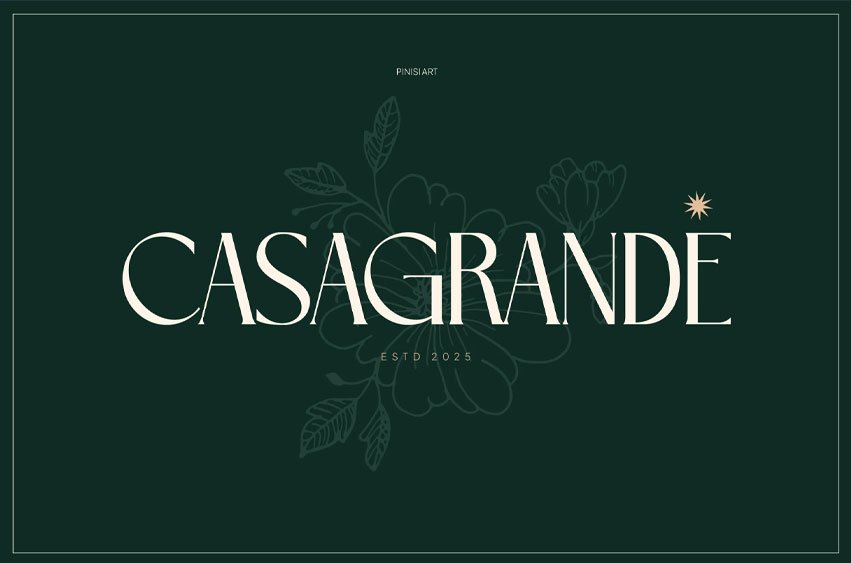
Casagrande Font is an elegant display typeface characterized by high-contrast strokes, refined serifs, and graceful proportions, which convey an elegant yet approachable vibe. Designed with sharp terminals and balanced letter spacing, it combines a classic editorial tone with modern versatility. Perfect for fashion magazines, lifestyle branding, and Instagram visuals, Casagrande delivers sophistication with effortless flow.
From bold headlines to delicate subtext, Casagrande captures attention while maintaining harmony in layout. Its expressive shapes give branding projects authority, while its timeless structure creates editorial impact in posters, book covers, and packaging. Whether you want to elevate a fragrance campaign, craft a lifestyle blog header, or design a wedding invitation, Casagrande provides the clarity and elegance that resonate with your audience.
Key Features :
- Elegant serif flow – balances elegance with readability.
- High contrast strokes – striking yet harmonious visuals.
- Versatile design – works across branding, packaging, social media, and editorial.
- Modern editorial vibe – perfect for lifestyle, fashion, and creative campaigns.